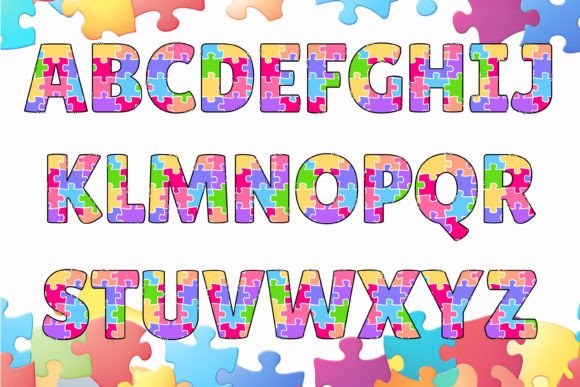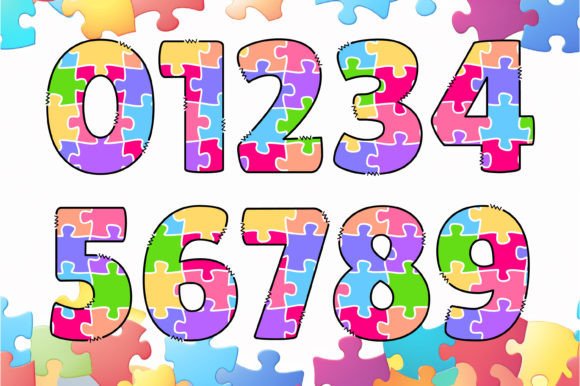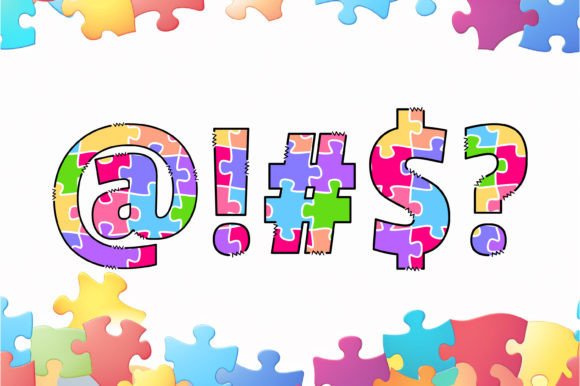
The Genius of Fonts: Unlocking Creative Expression in Design
Fonts are a crucial element in design, playing a vital role in conveying the tone, mood, and personality of a project. Among the numerous font styles available, the Genius Font stands out for its unique ability to add a touch of playfulness and artistic flair to various designs. In this article, we’ll explore the characteristics of Genius Fonts, their applications, and why they’re perfect for creative projects that aim to capture the imagination of their audience.
What are Genius Fonts?
Genius Fonts are a category of typefaces designed to evoke a sense of creativity, imagination, and playfulness. These fonts are often used in designs that aim to convey a lighthearted or artistic feel, such as children’s books, posters, invitations, greeting cards, and more. Characterized by their whimsical, colorful, and sometimes quirky appearance, Genius Fonts have become a popular choice among designers and crafters looking to add a personal touch to their work.
Applications of Genius Fonts
These fonts are incredibly versatile and can be used in a wide range of applications. Some of the most popular uses of Genius Fonts include:
- Children’s Books: Whimsical fonts are a staple in children’s literature, creating an engaging and immersive reading experience for young audiences. Genius Fonts are perfect for storybooks, picture books, and early readers, helping to bring the story to life.
- Posters and Flyers: Add a pop of personality to your posters and flyers with Genius Fonts. These fonts are ideal for promoting events, products, or services in a creative and eye-catching way.
- Invitations and Greeting Cards: Make your invitations and greeting cards stand out with Genius Fonts. These fonts add a touch of warmth and personality, making them perfect for special occasions like birthdays, weddings, and holidays.
- Crafting and DIY Projects: Genius Fonts are a great addition to any crafter’s toolkit. Use them to add a personal touch to your DIY projects, such as handmade cards, scrapbooking, and journaling.
Characteristics of Genius Fonts
Genius Fonts often feature distinctive characteristics that set them apart from other font styles. Some common traits include:
- Whimsical Letterforms: Genius Fonts often feature playful, irregular letterforms that add a touch of personality to your designs.
- Colorful and Patterned: Many Genius Fonts come in a range of colors and patterns, making them perfect for designs that require a bold and eye-catching approach.
- Hand-Drawn Feel: Genius Fonts often have a hand-drawn or hand-painted feel, giving them a unique, organic look.
Tips for Using Genius Fonts Effectively
To get the most out of Genius Fonts, follow these tips:
- Keep it Simple: While Genius Fonts are playful, it’s essential to balance them with simple, clean design elements to avoid visual overload.
- Experiment with Colors: Don’t be afraid to try out different color combinations to find the perfect match for your design.
- Mix and Match: Combine Genius Fonts with other font styles to create visual interest and add depth to your design.
Genius Fonts offer a world of creative possibilities for designers and crafters. With their playful, artistic, and whimsical characteristics, these fonts are perfect for projects that aim to capture the imagination of their audience. Whether you’re working on a children’s book, poster, invitation, or DIY project, Genius Fonts are sure to add a touch of personality and flair. So, next time you’re looking to create something special, consider unlocking the genius of fonts to take your design to the next level.